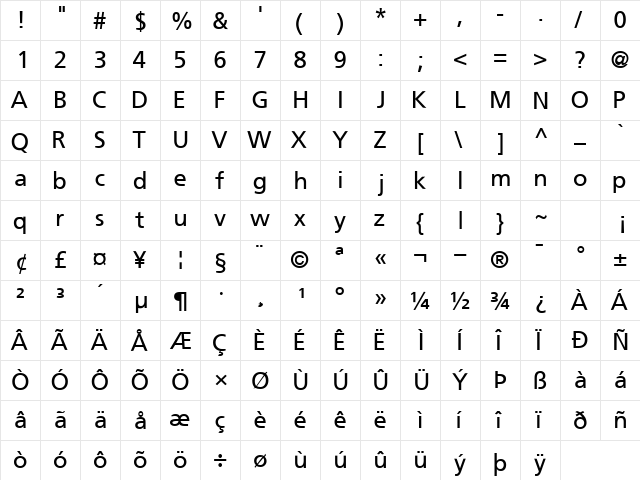
PalmaSSK Regular
Design Context for PalmaSSK Typeface
PalmaSSK offers clean, dependable letterforms without strong stylistic allegiance, making it a practical choice for designers who need flexibility.